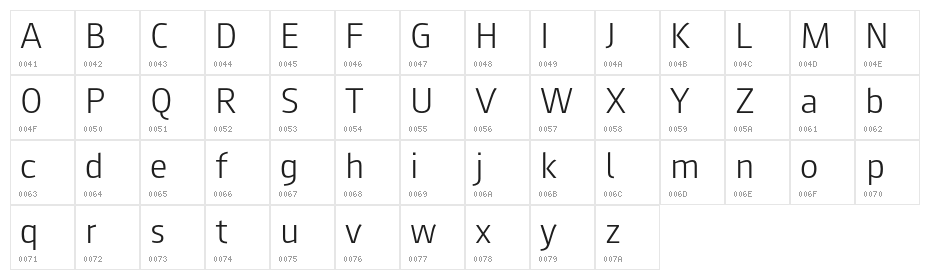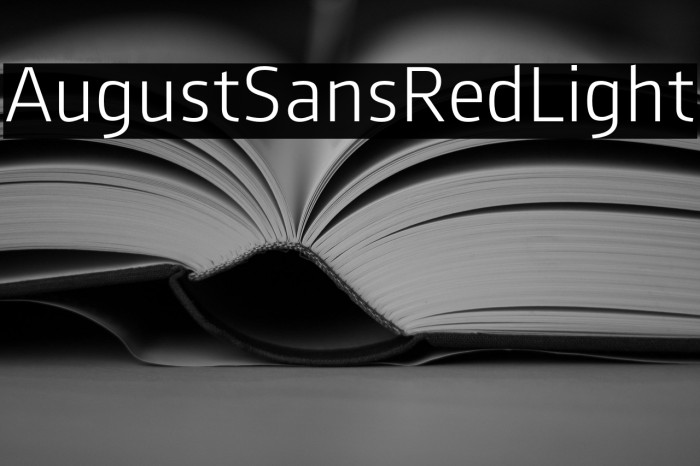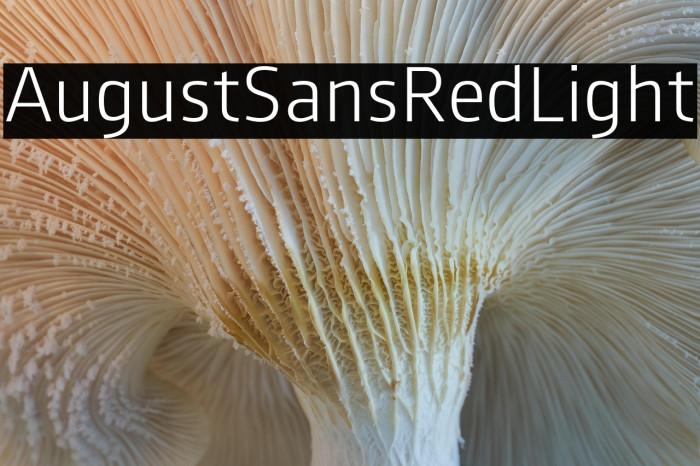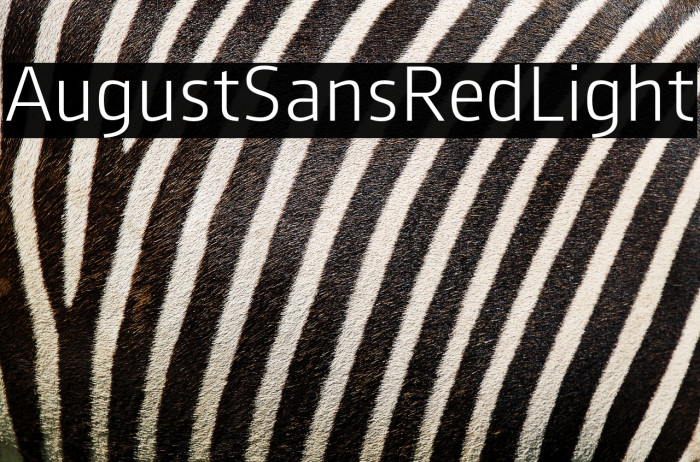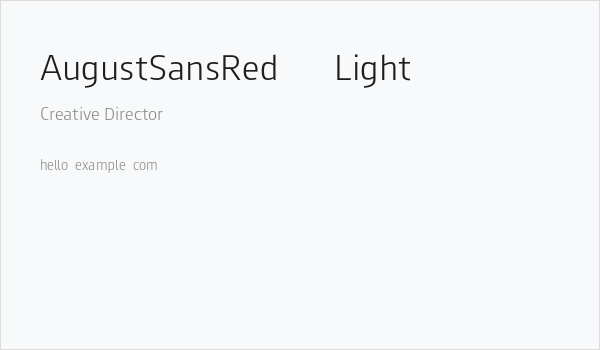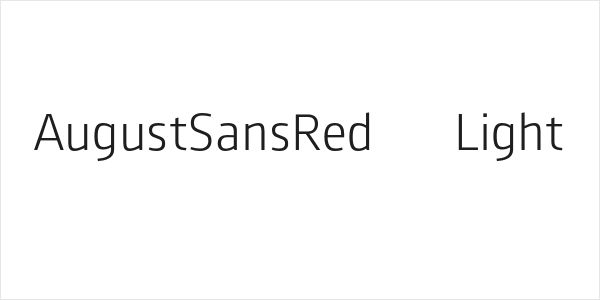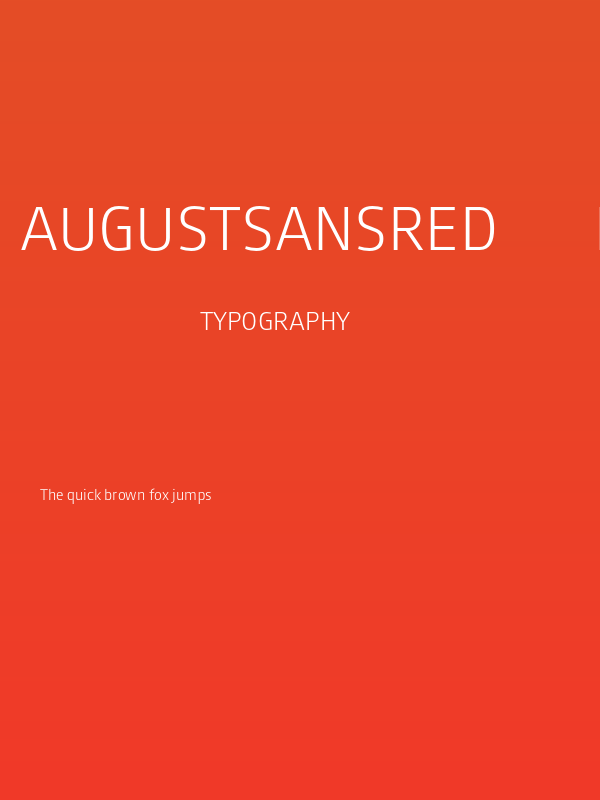
AugustSansRed-45Light Font
AugustSansRed-45Light Description
This typeface presents a clean and modern aesthetic with a sans-serif style. The characters are well-proportioned, featuring a uniform stroke width that contributes to its minimalist appeal. The uppercase and lowercase letters maintain a consistent height ratio, providing a harmonious look. The numerals are clear and easy to read, making them suitable for various applications. The special characters are designed with simplicity in mind, ensuring they blend seamlessly with the rest of the font. Overall, this font exudes a contemporary and professional vibe, ideal for digital and print media.